Lock by Mark Bloom and Diana Ovezea
As autumn settles in, winter approaches, and we all start to spend more time indoors, it's a great time to think about refreshing your design toolkit. And when it comes to typefaces, there's always cool new stuff to discover, from fresh releases to undiscovered classics.
In fact, there's so much typographical inspiration to explore that it can often be tricky to know where to start. That's why, every month, we at Creative Boom curate a quick and easy-to-use selection of typefaces.
From architectural marvels to playful experiments and modern reinterpretations of classic forms, we've pulled together a collection of standout typefaces from leading foundries and designers. Each of these new releases brings its own unique character and functionality to the table, offering plenty of scope to reinvigorate your design work this October.
So, whether you're working on branding projects, editorial layouts, or digital interfaces, check out these brilliant typefaces and discover how they can enhance your creative projects. And if you're looking for for further ideas, our recent roundup of fresh new fonts for September is well worth checking out too.
Rose Fang by Tommy Øberg
Looking to convey a sense of bold fierceness in your design projects? Then consider Rose Fang, which marries sharp elegance with dark allure.
Inspired by the interplay of light and shadow, this striking display typeface captures both structure and emotion in its angular forms. As the name suggests, its jagged, precise strokes resemble vampire fangs or rose thorns, giving it a sense of predatory grace.
Rose Fang is designed by Tommy Øberg of TØ—Labs and has four distinct styles: Sharp, Sharp Outlined, Rounded and Rounded Outlined. We feel it's particularly well-suited for fashion branding, album covers and edgy magazine layouts. More broadly, its strong personality makes it ideal for headlines and logo designs that need to make a statement.
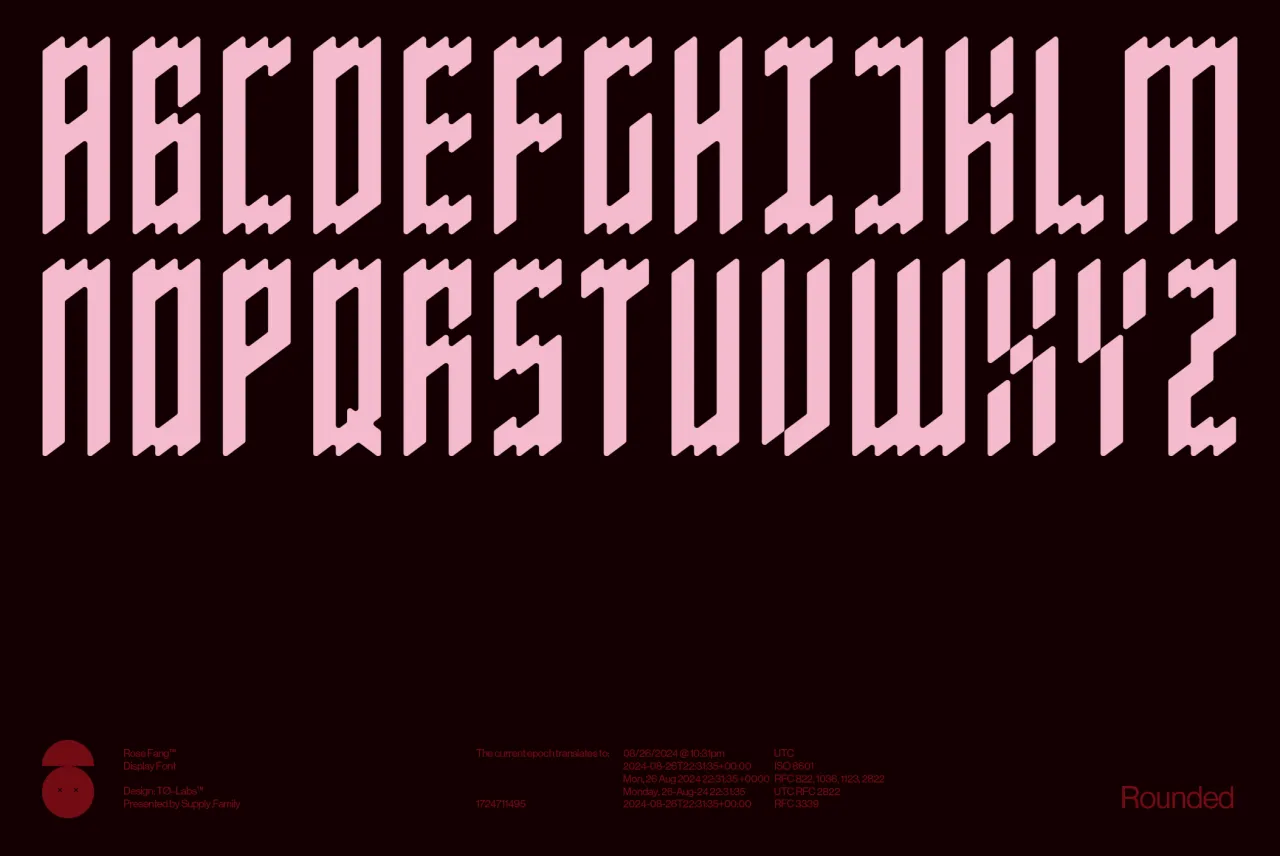
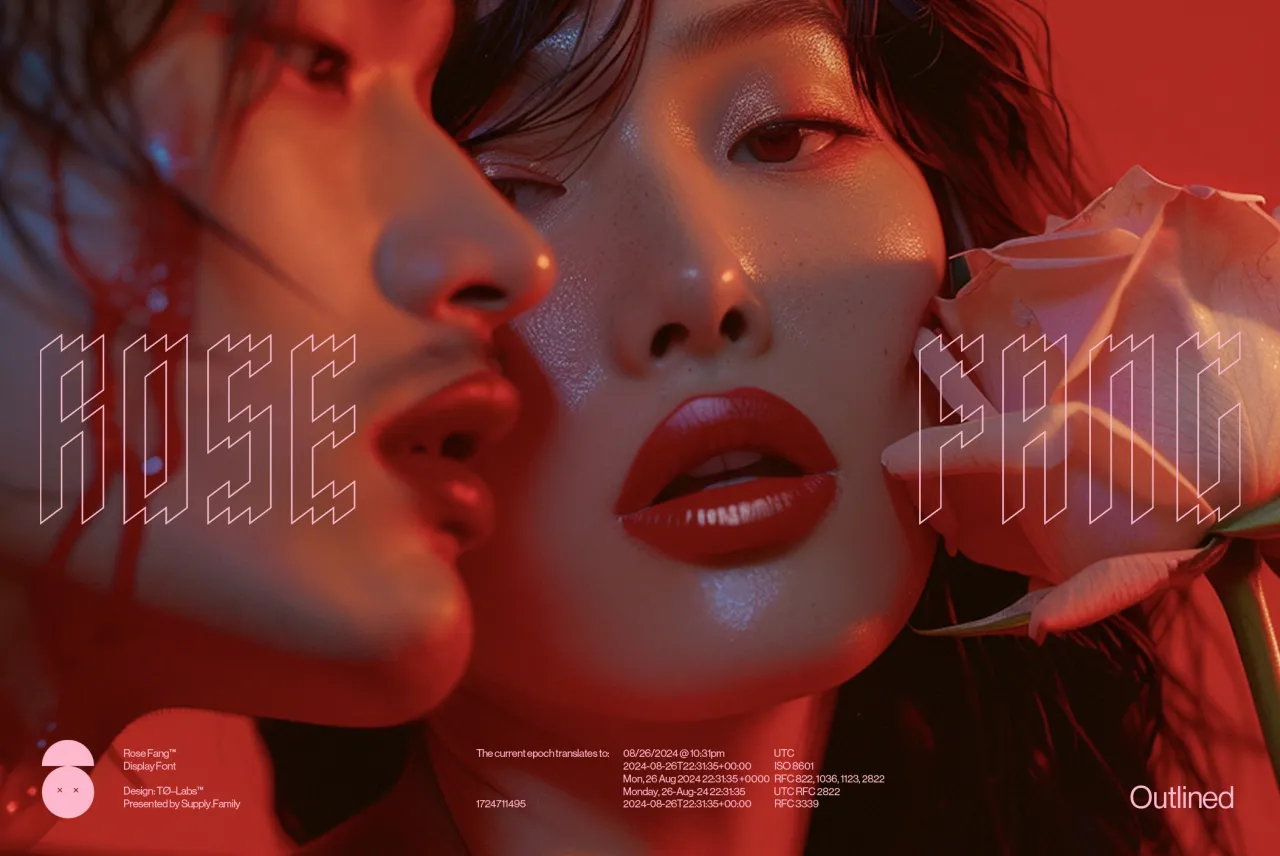
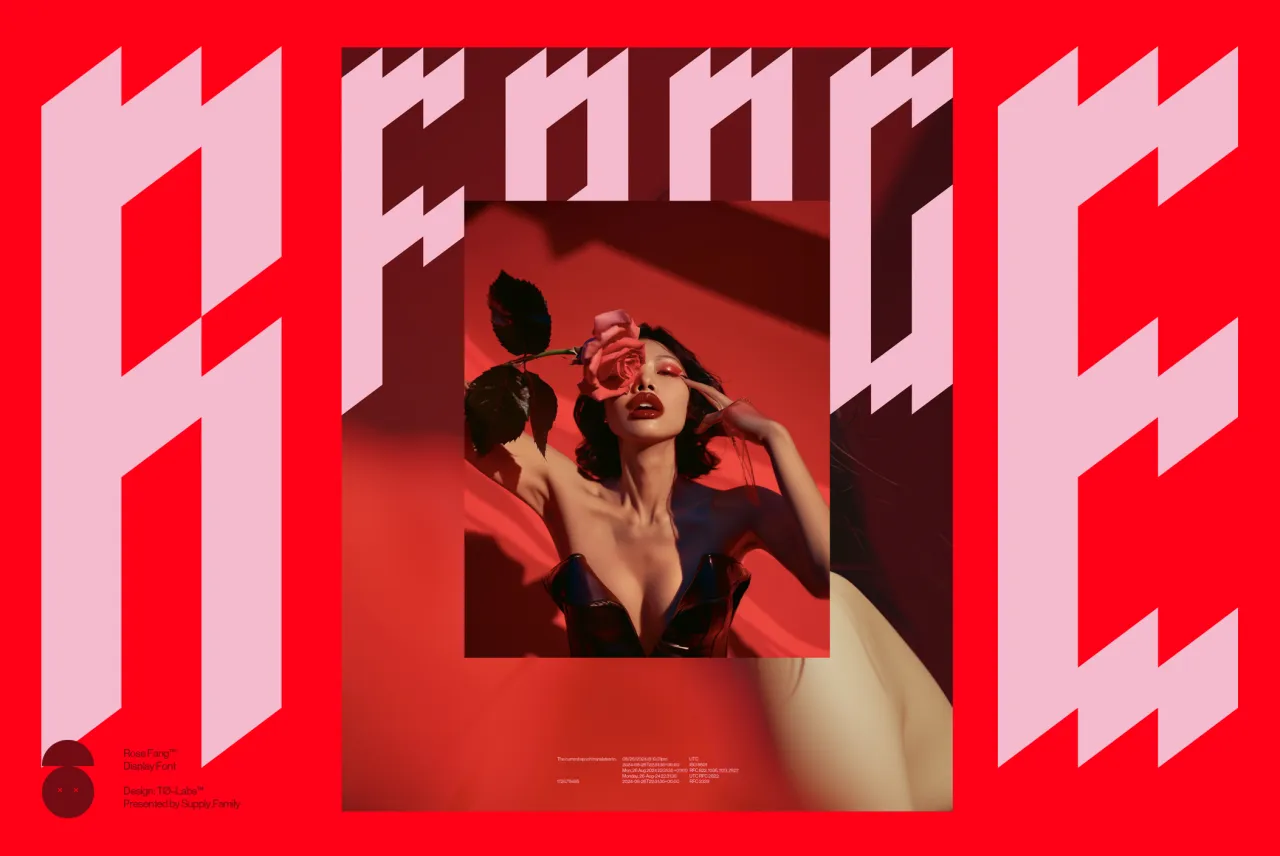
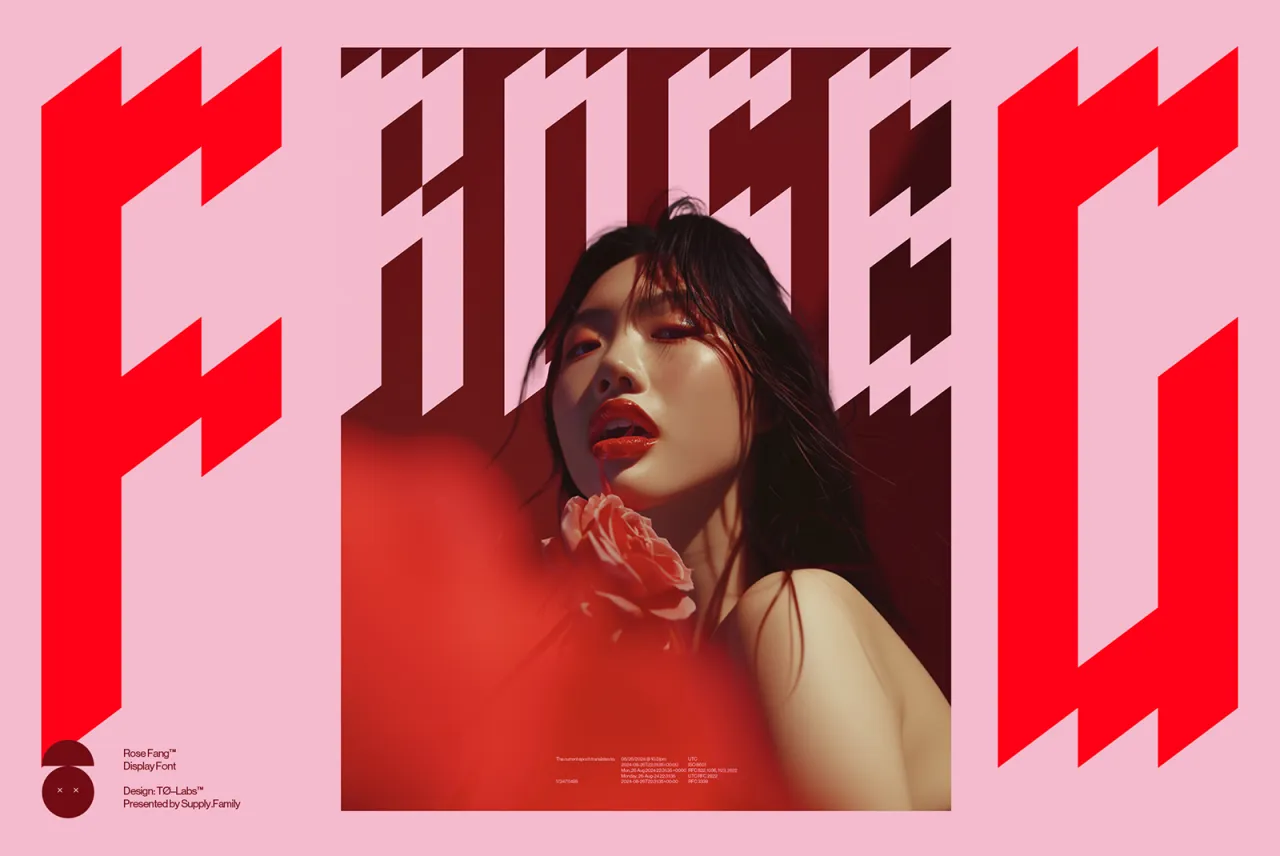
Lock by Mark Bloom and Diana Ovezea
Lock, a superfamily designed by Mark Bloom and Diana Ovezea for CoType Foundry, achieves a feat many type designers aim for but rarely achieve: seamlessly blending tradition with contemporary style.
Drawing inspiration from calligraphic strokes, Lock's letter shapes have been carefully crafted to achieve a modern humanist design. The family comprises four subfamilies – Serif, Serif Stencil, Sans, and Sans Stencil – each featuring six weights and glyph alternates and arrows. The Serif version is sharp and outspoken, while the Sans is blunt and understated. Each version offers a playful stencil companion, completing this comprehensive type system.
Overall, Lock's versatility makes it suitable for various applications, from editorial design to branding projects. Its blend of traditional and modern elements helps designers bridge the gap between classic and contemporary aesthetics, making it a valuable addition to any toolkit.
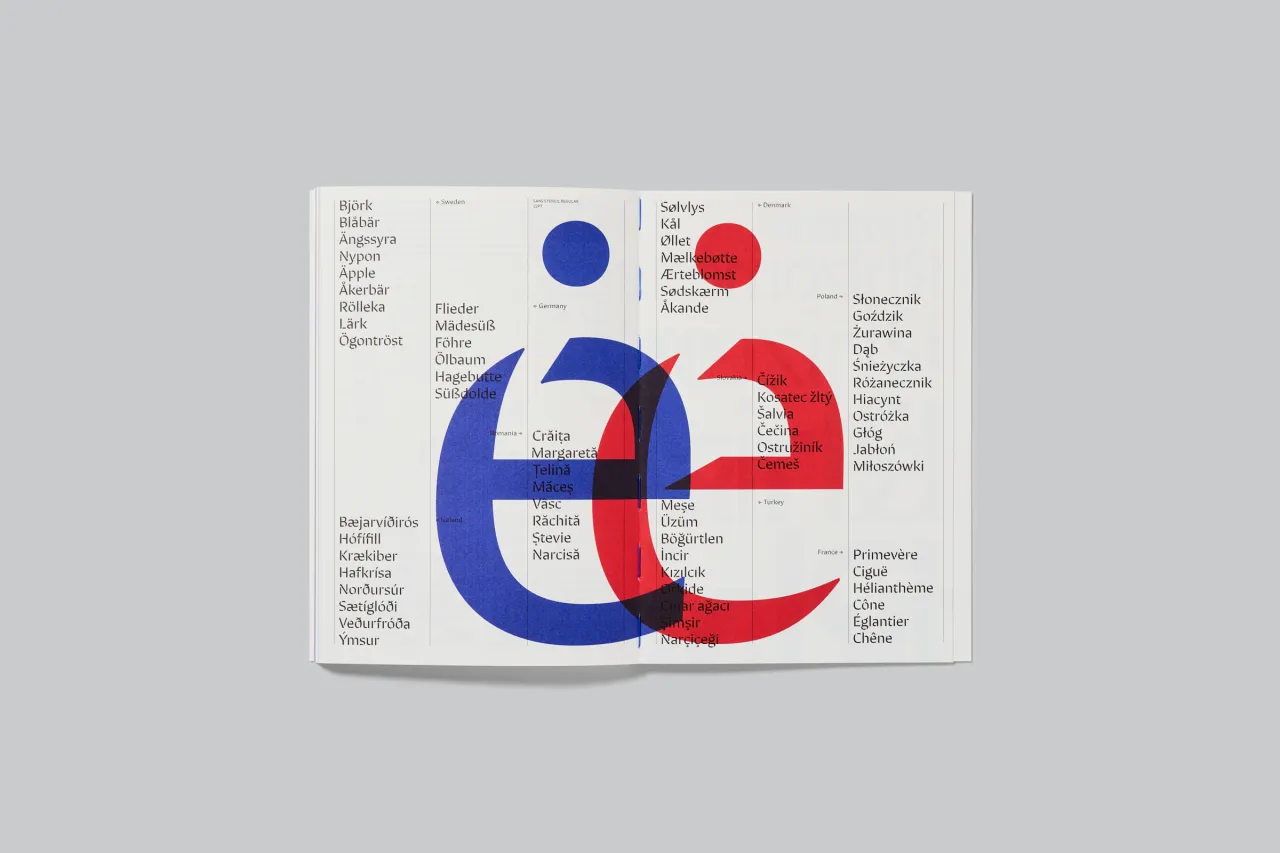
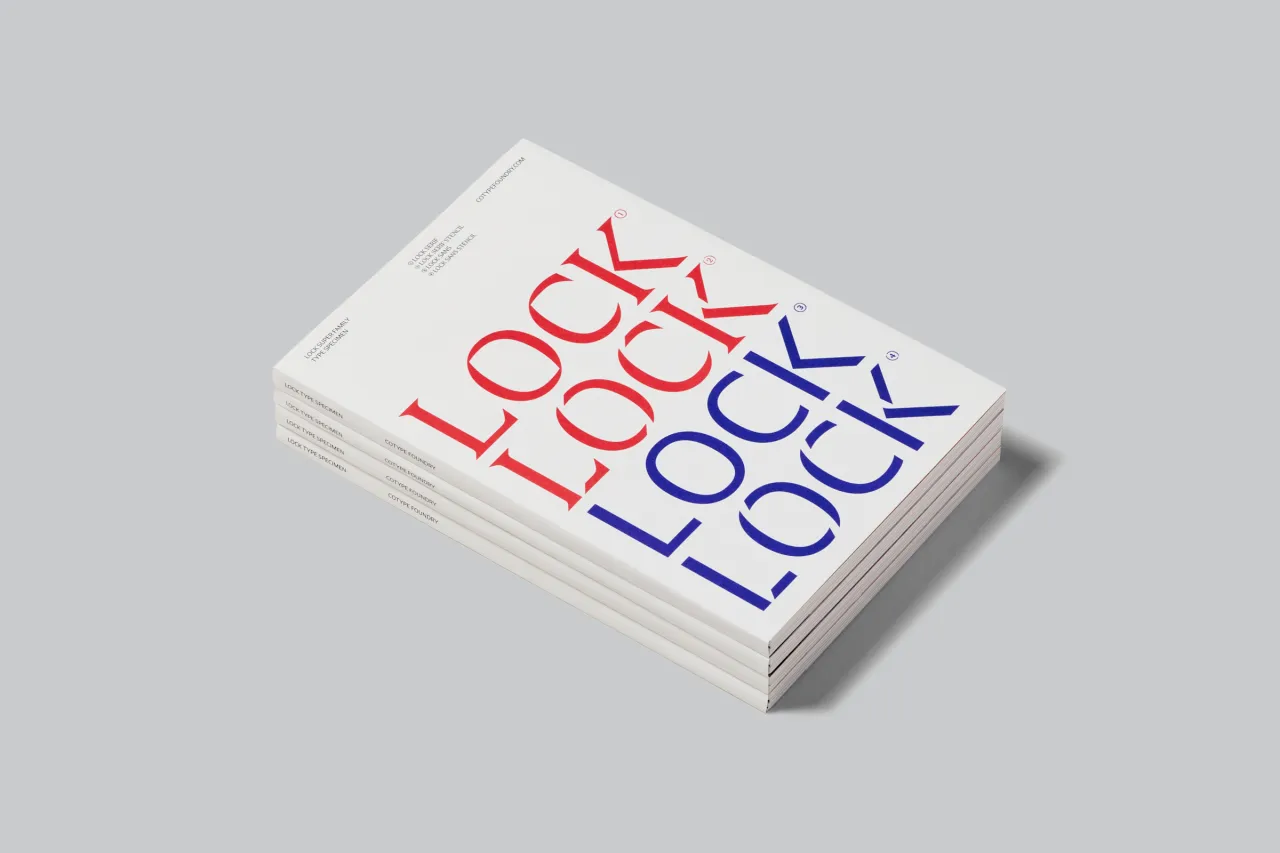
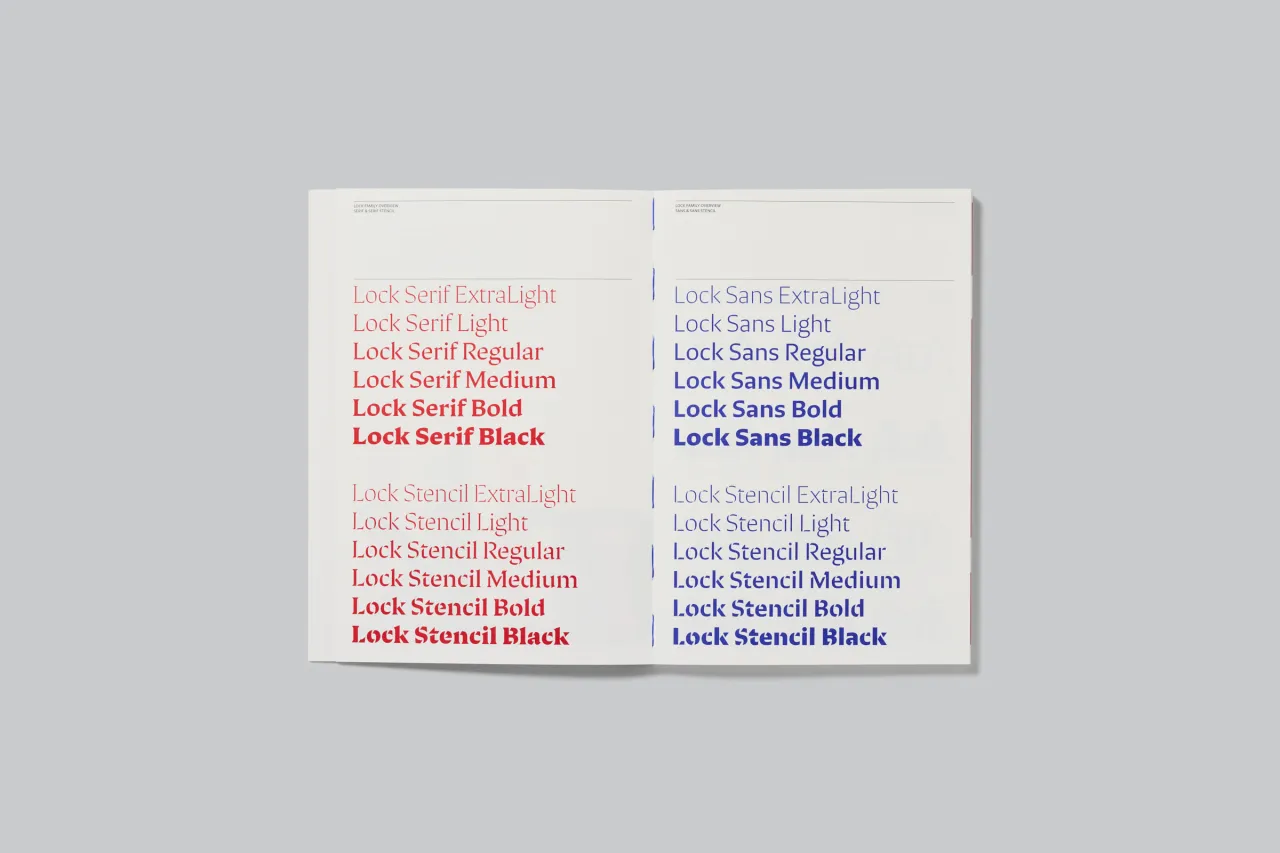
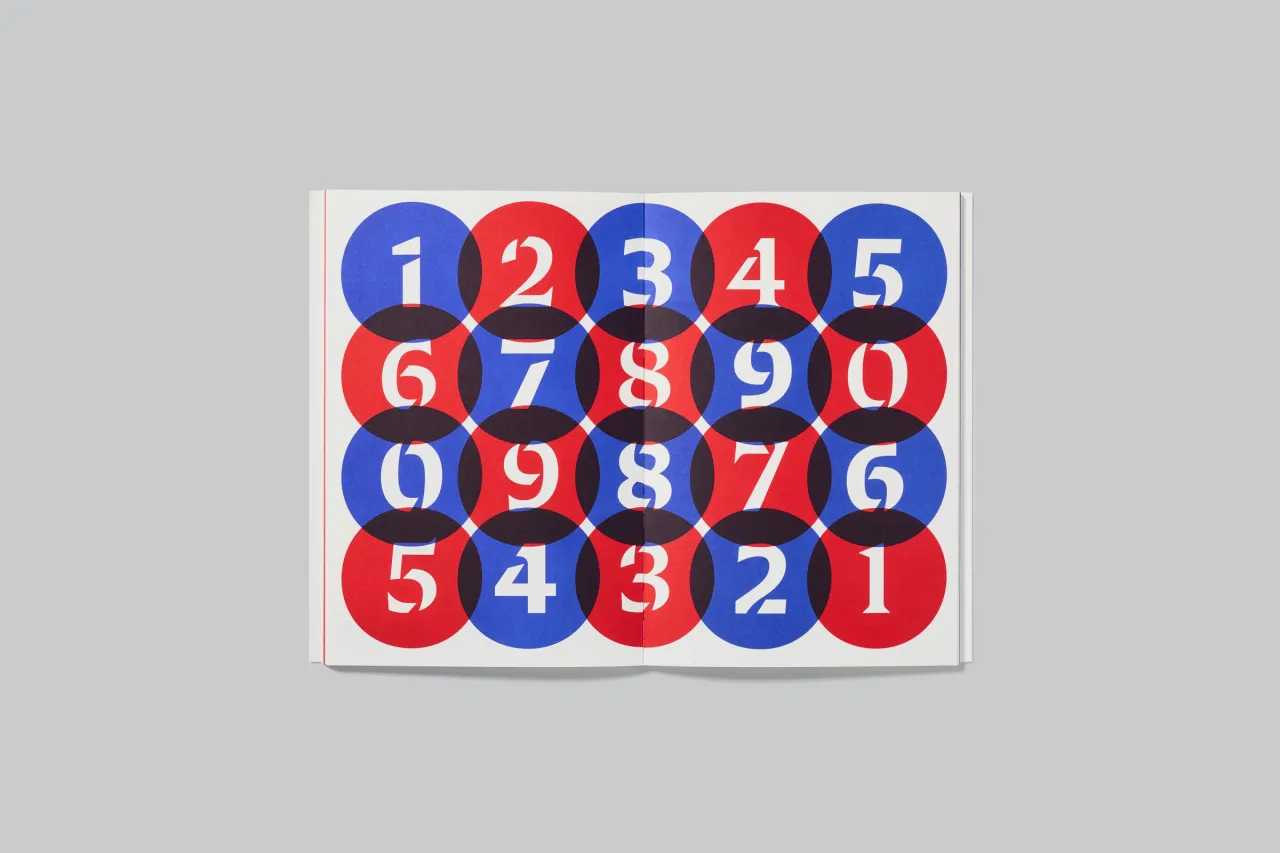
Penelope by Timothée Berger
Created by self-taught designer Timothée Berger, Penelope is a distinctive typeface inspired by an unexpected source: a game of billiards and an old billiards manual.
This capital font features bold curves and a mix of narrow and wide lettering for added rhythm. It incorporates both rounded and sharp corners, creating a delightful irregularity. It also offers several alternative letters and ligatures, providing designers with a wealth of graphic possibilities.
We feel this font would shine in display applications, such as posters, headlines or logo designs. Its unique character makes it particularly suitable for projects in the sports, entertainment, or lifestyle sectors, where a blend of retro charm and modern flair is desired.
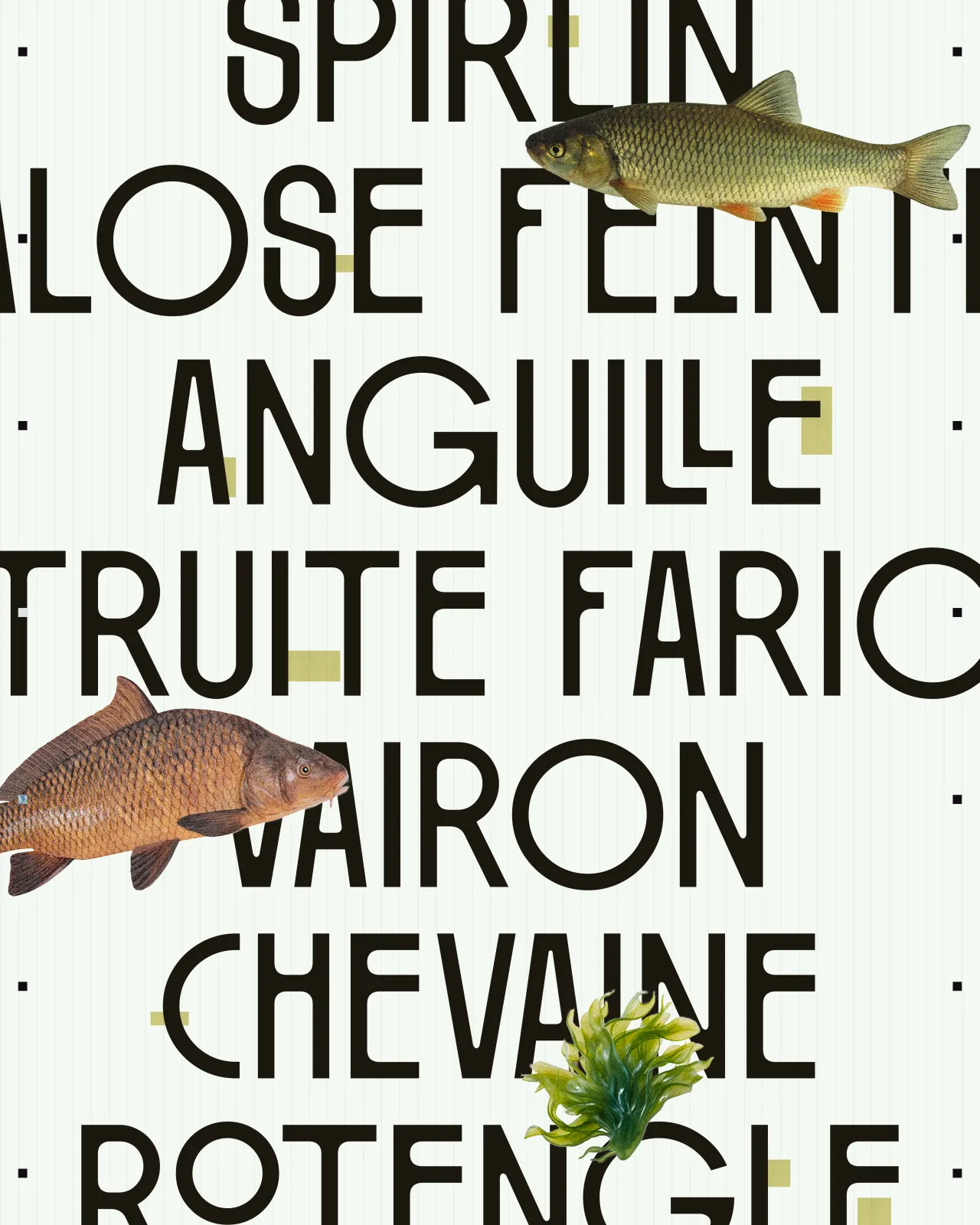
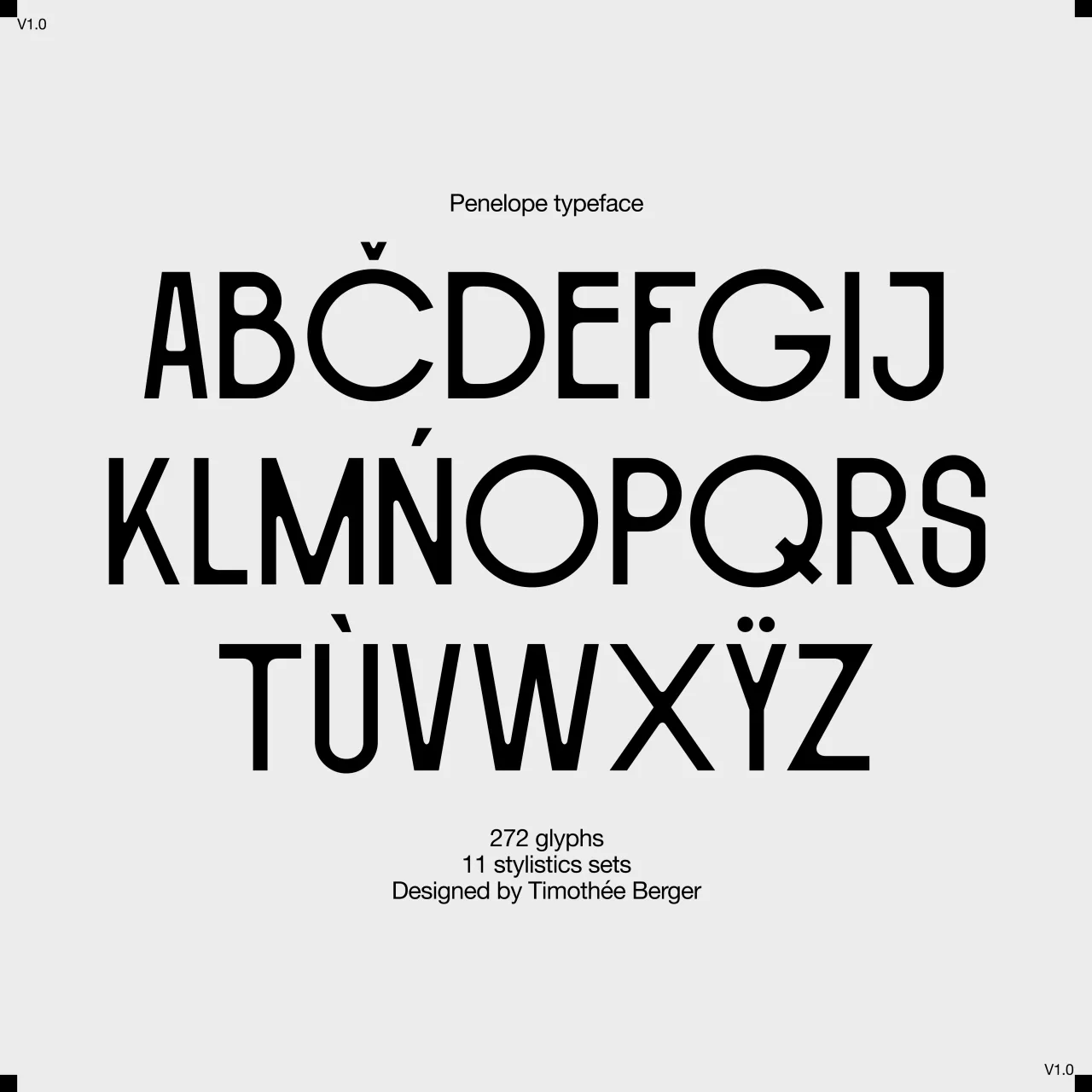
GT Pantheon by Tobias Rechsteiner & Noël Leu
GT Pantheon, designed by Tobias Rechsteiner and Noël Leu for Grilli Type, is an innovative typeface that reflects a harmonious blend of traditional ideals and modernist shapes.
Inspired by the Pantheon in Rome, GT Pantheon is characterised by sharp, chiselled, and crisp forms and has a distinctly architectural quality. It is built around three archetypes: Display, Text, and Micro, each crafted to perform optimally across different size ranges.
This versatile font excels in editorial design, particularly for architecture or design magazines. Its range of styles makes it a strong choice for branding projects, especially in fields such as design, construction, or cultural institutions.
Nestor by Julien Fincker
Designed by Julien Fincker, Nestor is a soft and narrow sans-serif that marks the launch of his new foundry, Font Cuisine. This typeface draws inspiration from early 20th-century advertising and family history and balances confidence with a touch of playfulness.
With its rounded corners and narrow width, Nestor stands upright and exudes self-confidence. Its clear and distinct appearance makes it highly suitable for strong headlines, editorial work, packaging, branding, and advertising. Its soft character, combined with its confident stance, allows it to convey a message with both authority and approachability.
The family includes 12 styles, from Extralight to Extrabold, with matching italics. It also features a range of OpenType features, including alternative characters and automatic fractions. Nestor is available exclusively at Font Cuisine at a 50% reduced price until 31 October: use the coupon code Nestor50.
Pivot Grotesk by Anton Studer
Designed by Anton Studer for Nouvelle Noire, this font blends visual principles from timekeeping, walking visualisations, and logarithmic spirals found in nature. This unique combination merged with the unrestrained style of early grotesques, results in an energetic and distinctive typeface.
Originally designed for Theater Basel in 2020, Pivot Grotesk has been refined and expanded for its 2024 retail release. The family includes eight weights from Thin to Black, each with matching italics, providing a wide range of expressions.
It would excel in projects that require a balance of rationality and dynamism and is particularly well-suited for cultural institutions, contemporary art galleries and forward-thinking tech companies. More generally, Pivot Grotesk's unique character makes it a strong choice for editorial design, especially in magazines or websites covering design, technology or contemporary culture.
Caxa Display by Estúdio Caxa
Want to add a touch of South American flavour to your layouts and illustrations? This playful typeface is a great choice.
Created by Estúdio Caxa, Caxa Display is heavily inspired by Brazilian and Latin American design. Drawing inspiration from woodcut typography, it features hard and sharp forms that give the impression of being physically carved. Its letters are designed to fit and fill spaces both in height and width, giving weight and presence to layouts.
This font is ideal for use in large sizes in a blocky and bold manner. It's particularly well-suited for projects that aim to capture a sense of cultural vibrancy, such as posters for cultural events, packaging for artisanal products, or branding for businesses that want to emphasise their Latin American roots. Its fun sense of personality also makes it a great choice for children's books or educational materials focusing on cultural themes.
Marsam by Evan Deterling for Typonym
Marsam is a sans-serif designed to be paired with Newsam. A distinctly modernist font, it features a level of refinement that's often missing in slab serifs; this is particularly apparent in the 'a,c,g,r,s' glyphs and numerals.
Its italics, meanwhile, are true italics with a cursive emphasis, and the slanted spurs and joints, with modest 'ink-traps' give it a distinctive, modern feel. And the punctuation is convertible between oval and square forms. In the words of its creator, Evan Deterling: "Marsam roams that arid desert between the severe, emboldened geometry of the 'Egyptian' neo-grotesque slab serifs and the graceful, bracketed serif forms of traditional Clarendon.
Marsam is the advanced release of an expansive 20 font typeface family intended for both commercial and editorial applications.